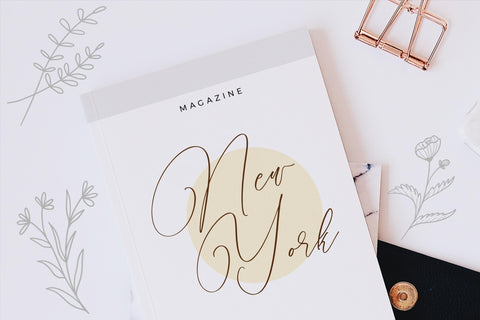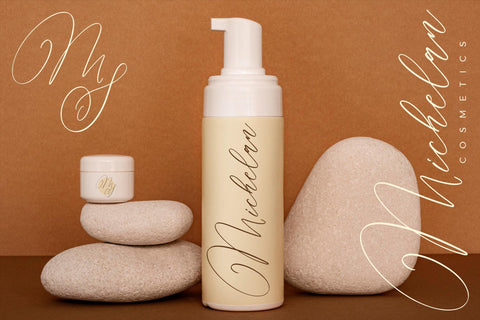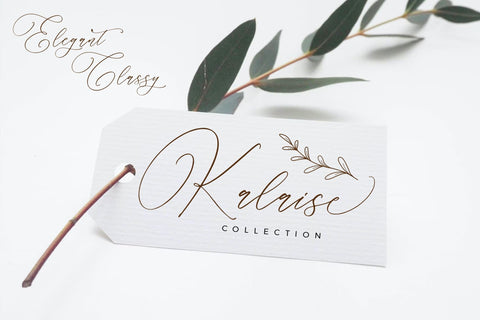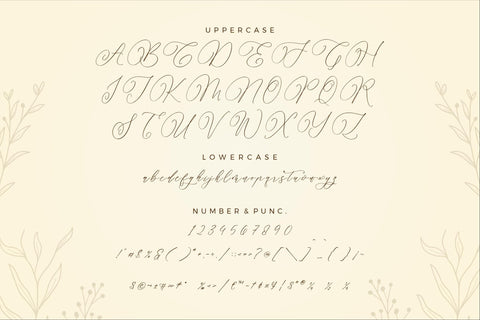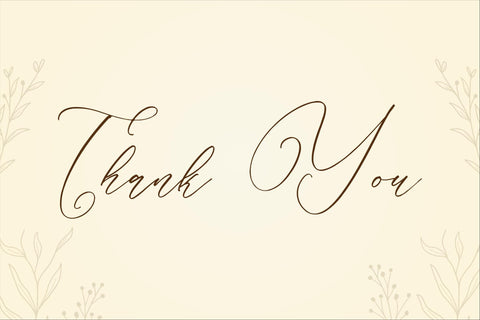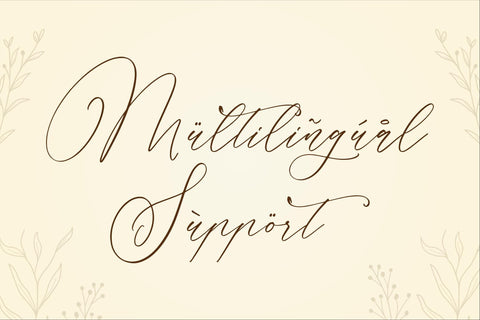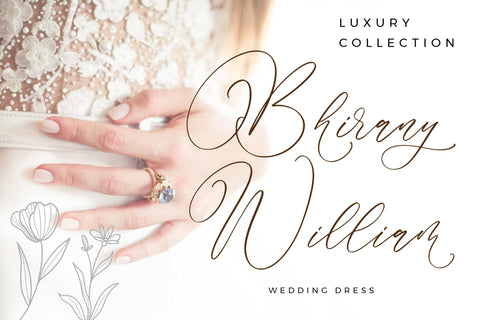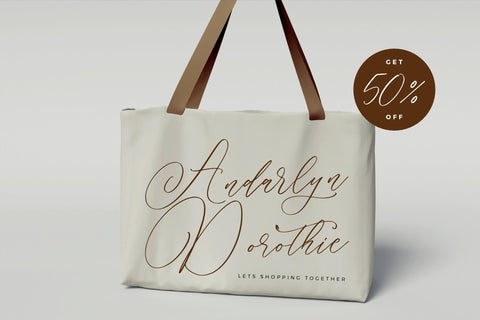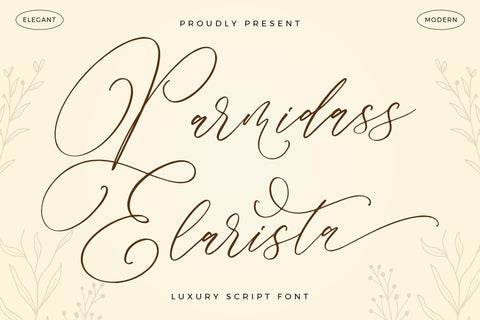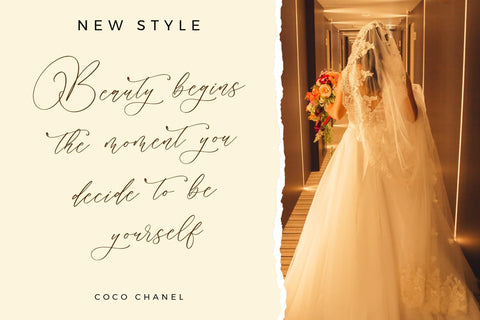
Parmidass Elarista - Luxury Script Font
Proudly present Parmidass Elarista - Luxury Script Font , created by Storytype,
A luxury script that has own unique style & modern look.